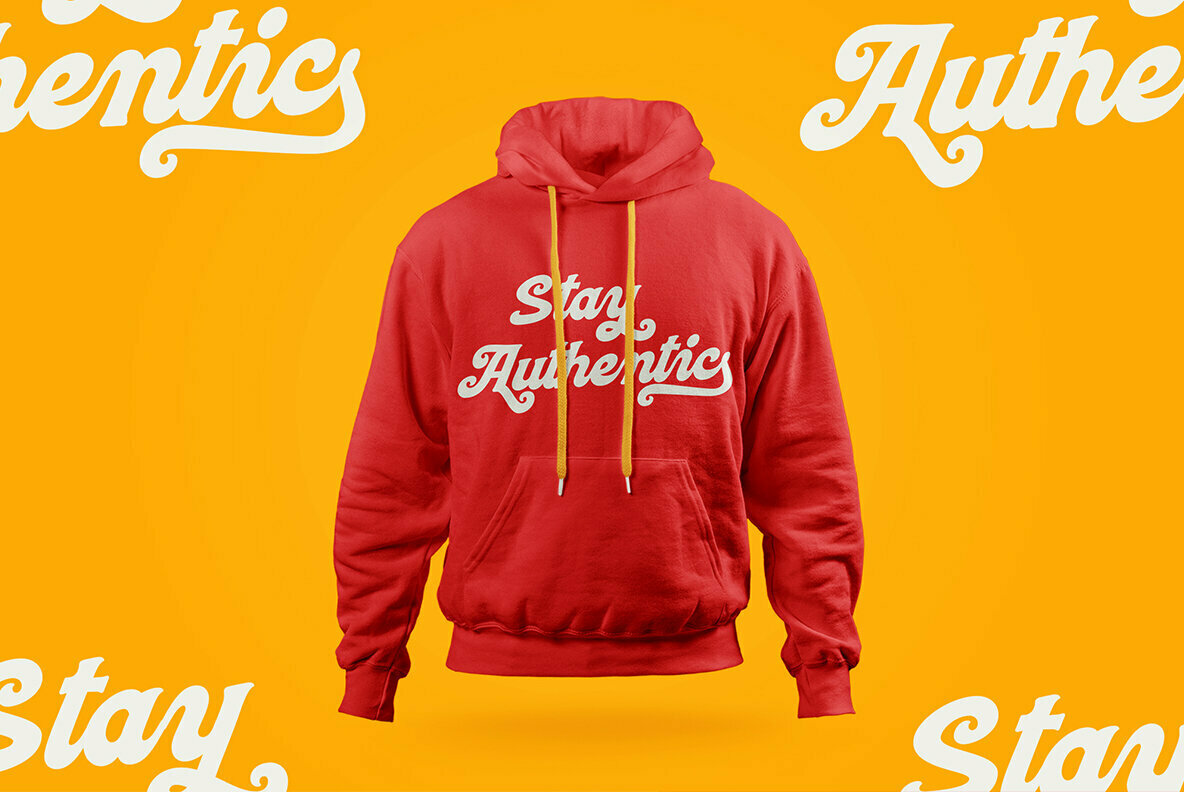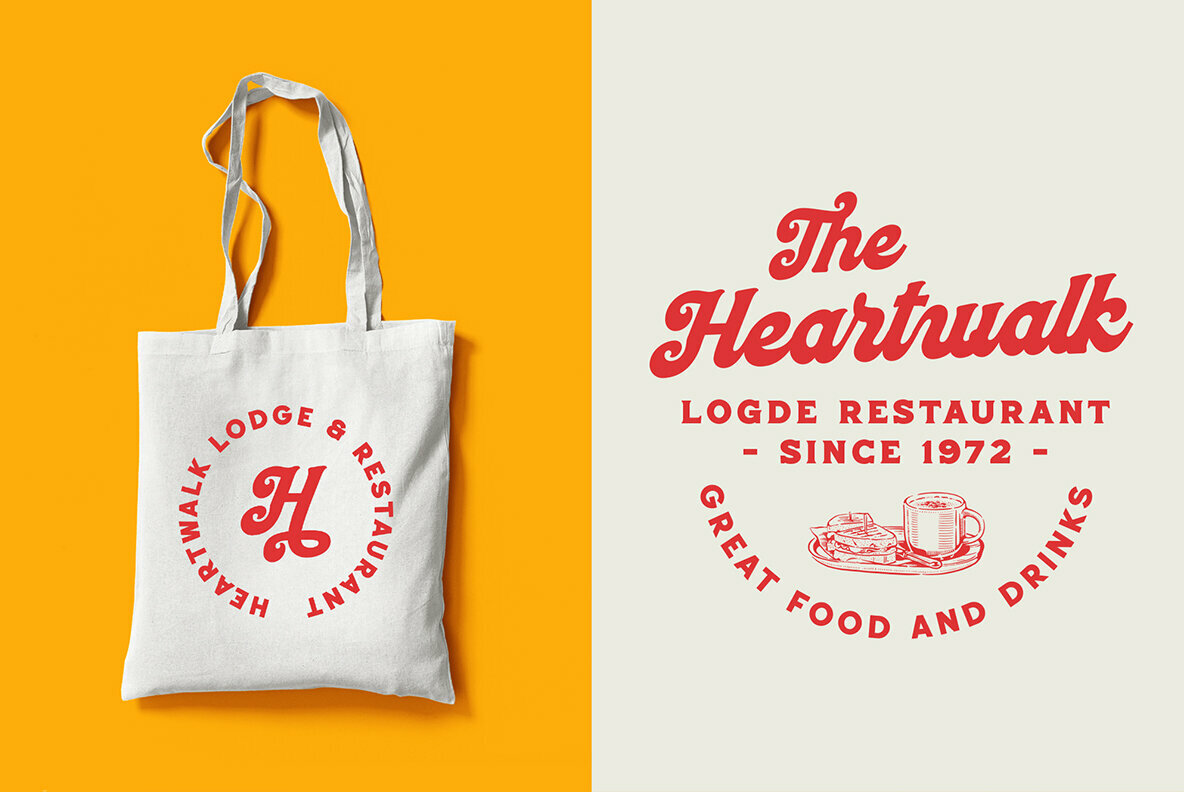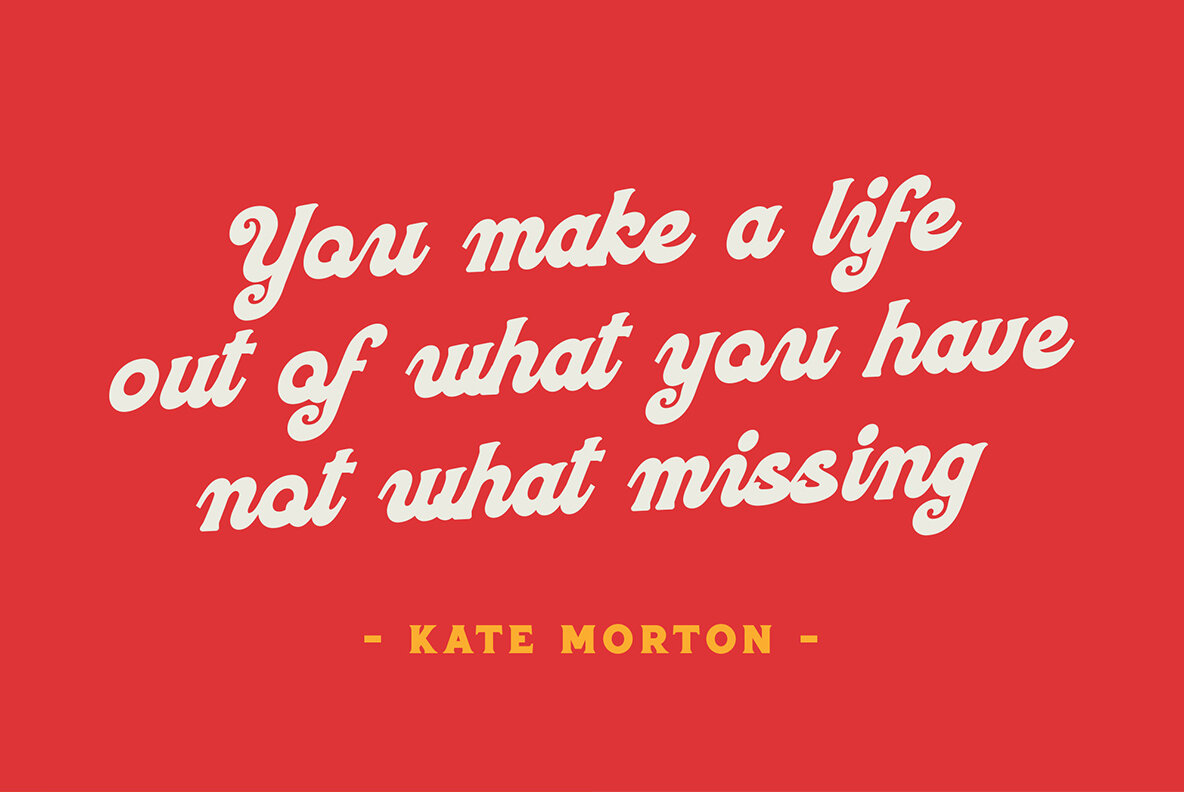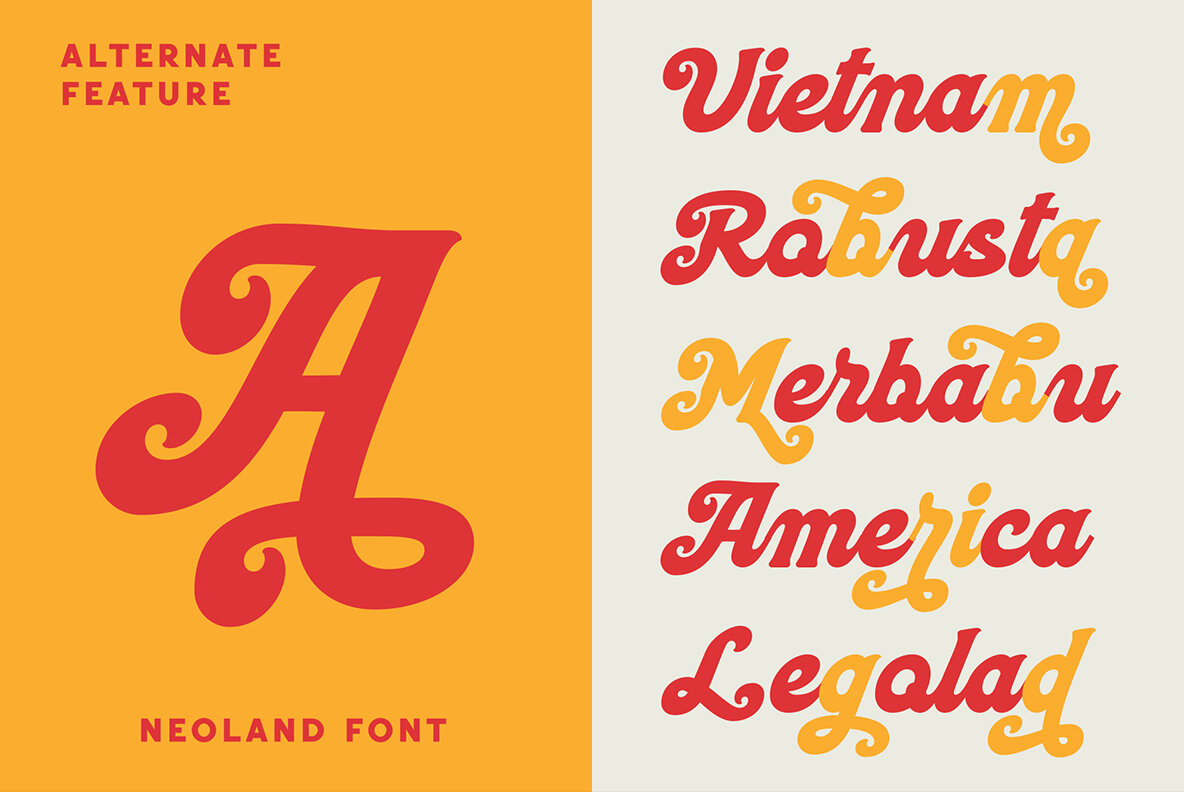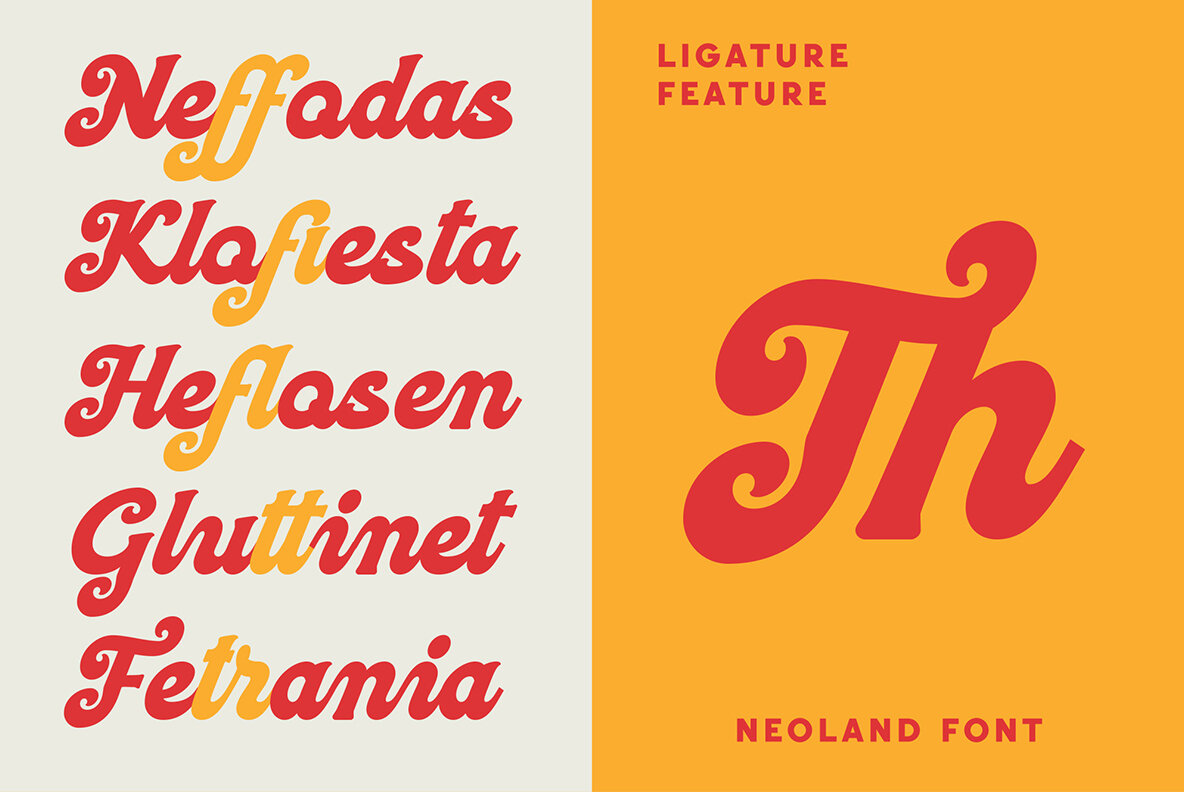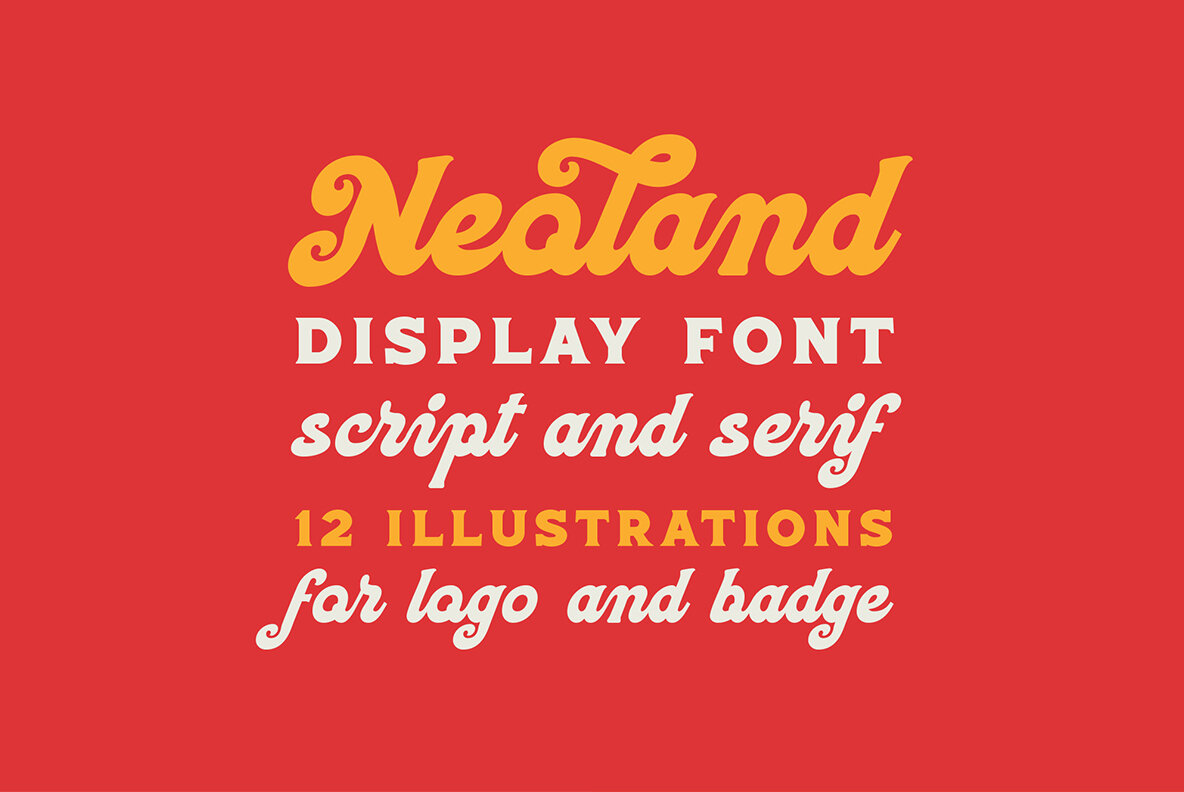
Neoland Font
Neoland offers a dynamic solution for designers seeking a distinctive display font collection that combines script and serif elements. Ideal for crafting logos, badges, posters, and more, this font suite marries creativity with functionality. The included script font brings a touch of elegance through its alternates and ligatures, while the serif font provides a robust, all-caps option. Use Neoland to enhance your branding projects, packaging designs, apparel, and custom graphics.Neoland: A Versatile Display Font Collection